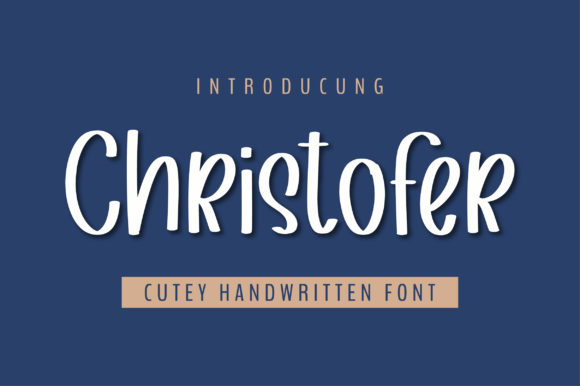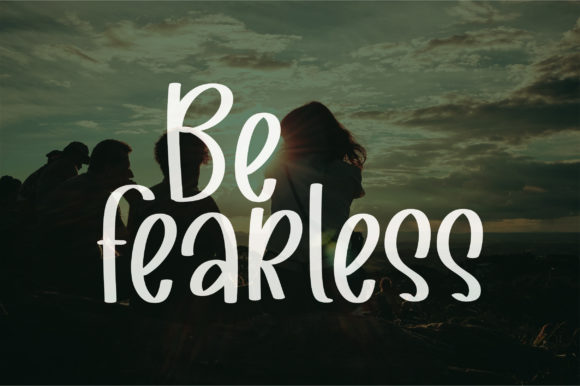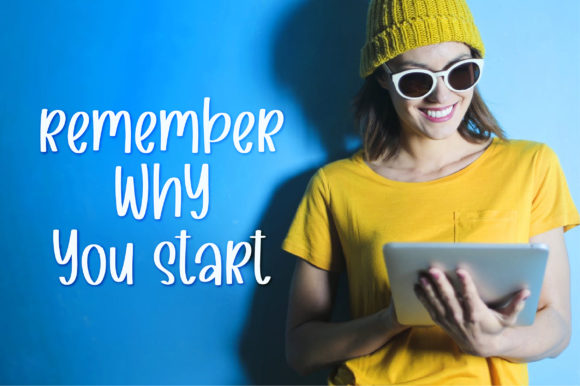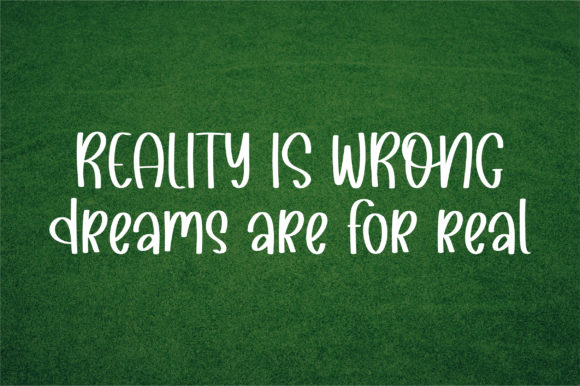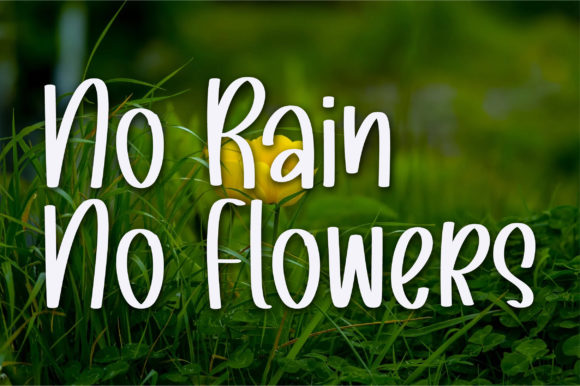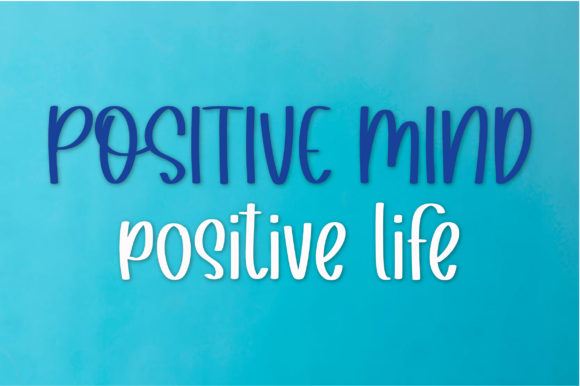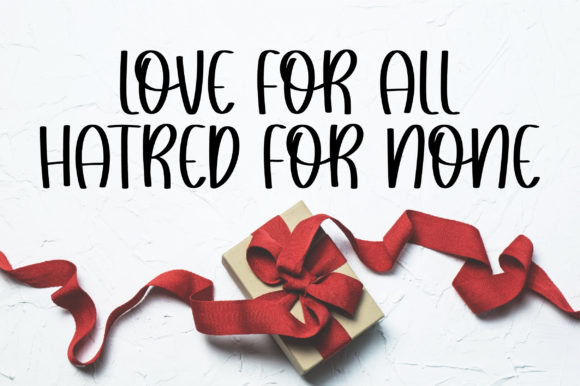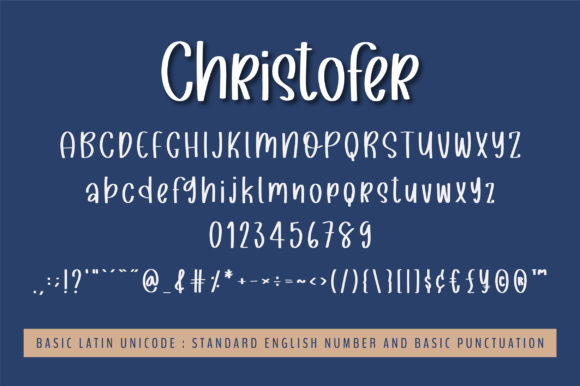
Christofer Font
About Christofer Font
Christofer is a cheerful and friendly font. It features an incredibly classic style, while still keeping a friendly feel. Christofer is the perfect font for making original and outstanding designs.